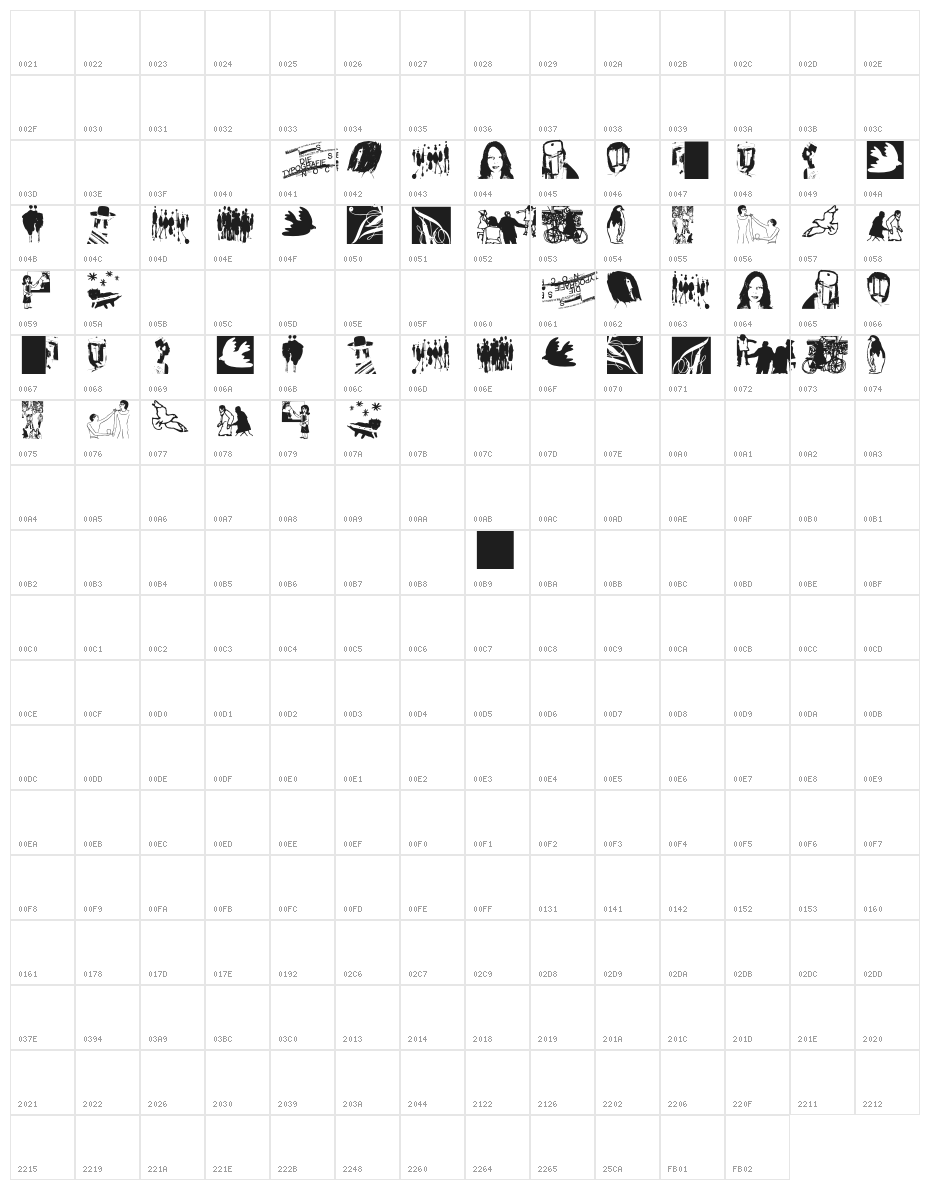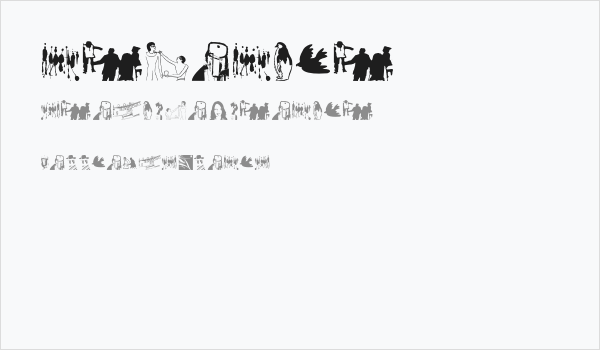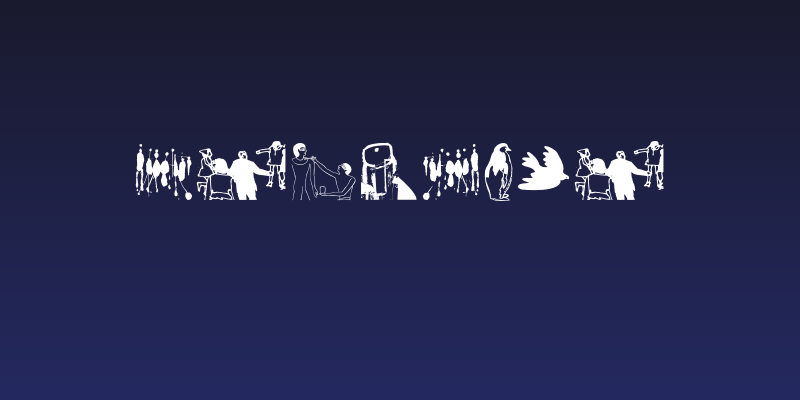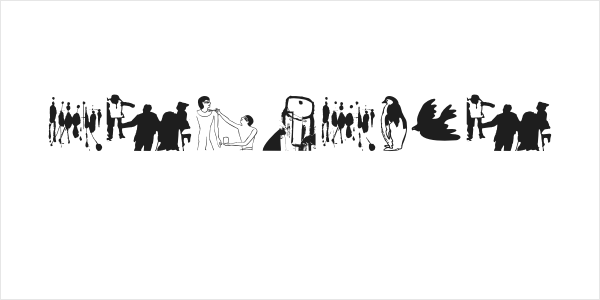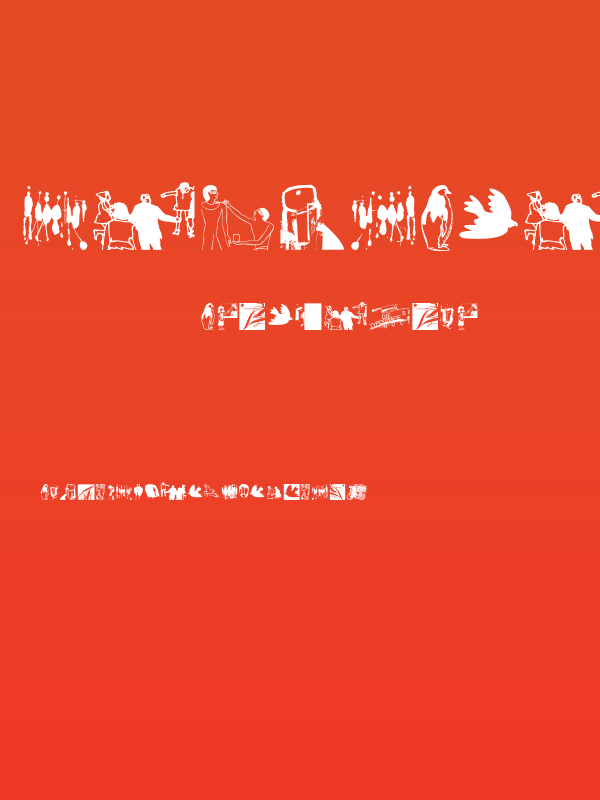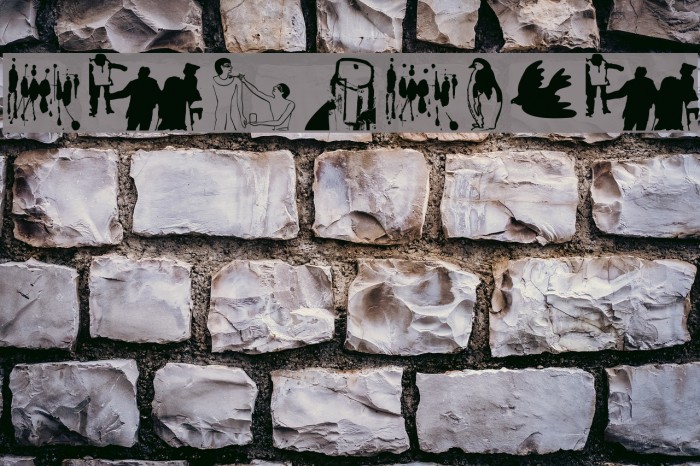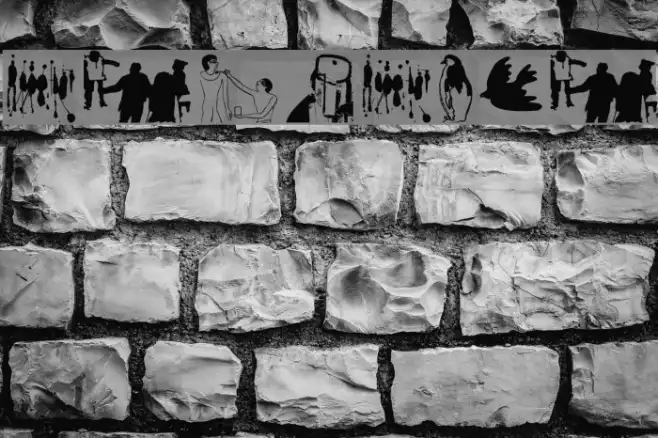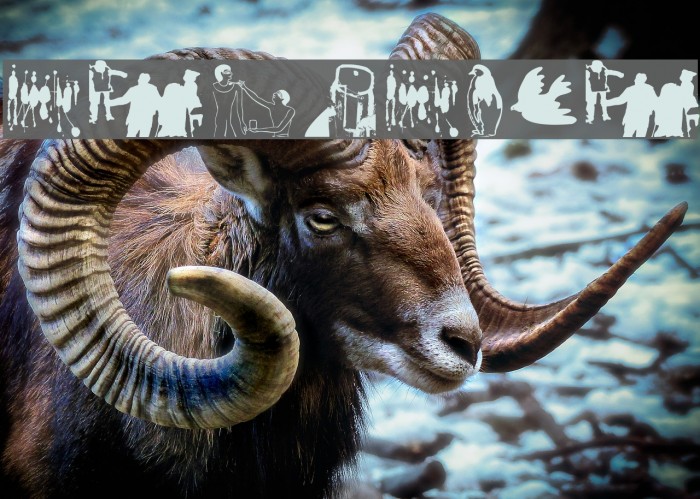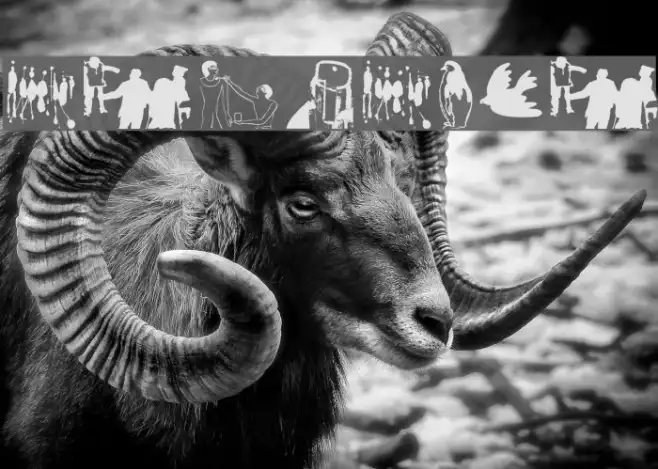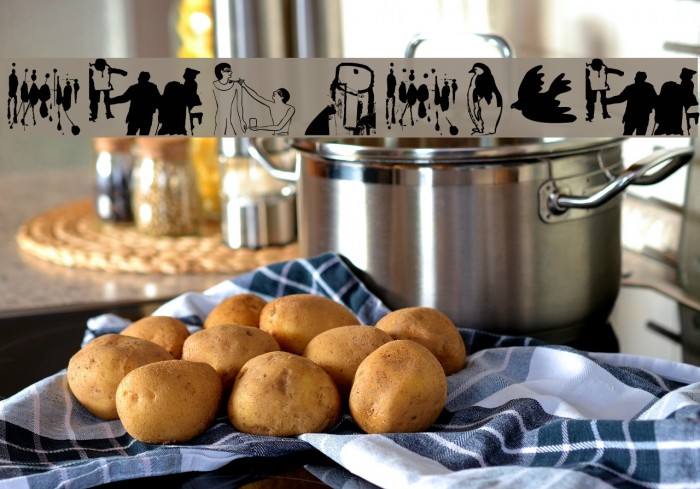
MrVector Font
MrVector Description
A pictogram and dingbat style collection featuring a variety of black and white illustrations, including people, faces, objects, and abstract shapes. Each character is represented by a unique, detailed icon rather than a traditional letterform.
| Overall Style | Decorative, Modern |
| Use Case | Icons, Decorative elements, Visual communication |
| Proposed Projects | Posters, educational materials, infographics, creative design projects, visual storytelling. |